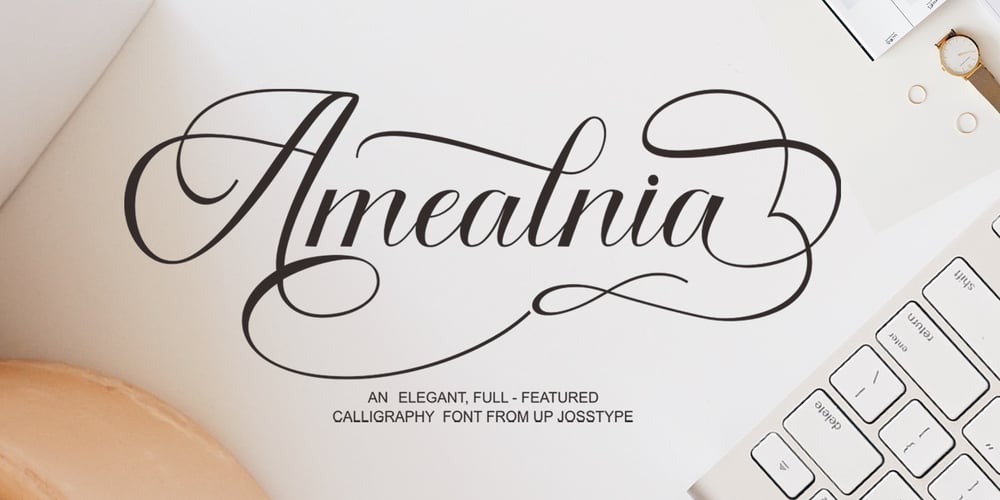
Amealnia Font Family was designed by Teuku Zulfikar and published by Josstype. Amealnia contains 1 styles and family package options. Amealnia Script is a new modern script font with an irregular baseline. Amealnia looks lovely on wedding invitations, thank you cards, quotes, greeting cards, logos, business cards and more. Perfect for using in ink or watercolor. Including initial and terminal letters, alternates, ligatures and multiple language support.To enable the OpenType Stylistic alternates, you need a program that supports OpenType features such as Adobe Illustrator CS, Adobe In design & CorelDraw X6-X7, Microsoft Word 2010 or later versions.